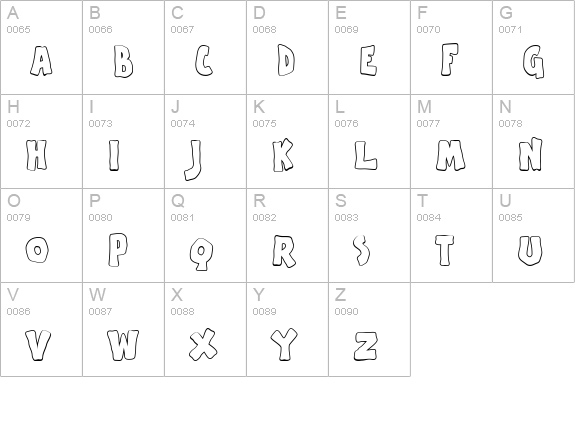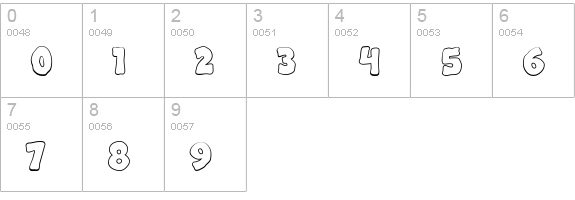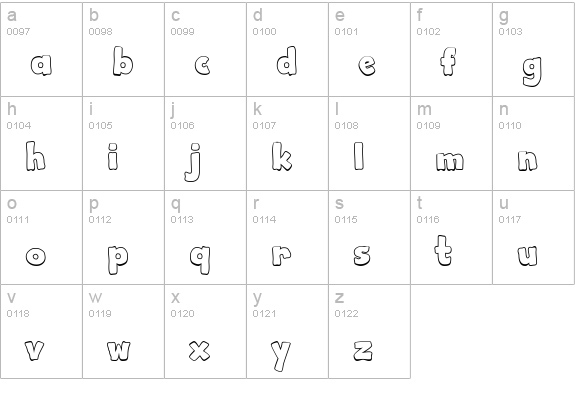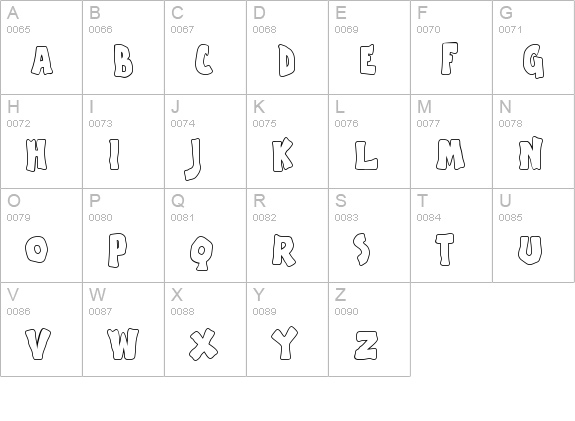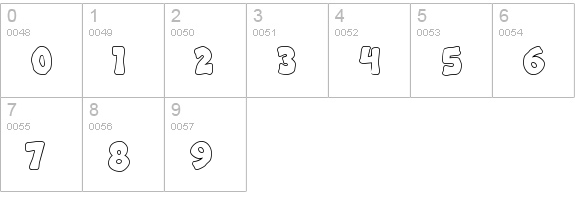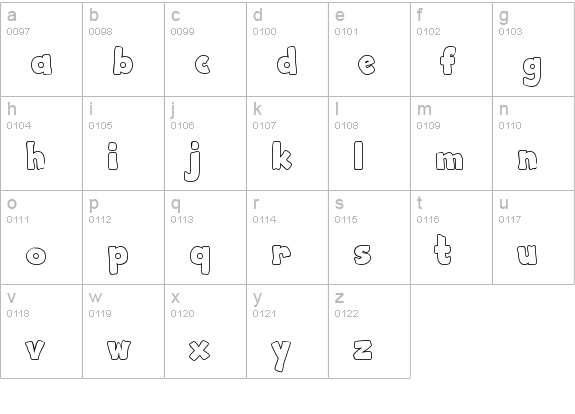
Apple Boy BTN Outline font is a charming and playful typeface that adds a fun and whimsical touch to any design project. With its bold outlines and quirky style, this font is perfect for creating eye-catching headlines, posters, and invitations. The unique design of Apple Boy BTN Outline font is sure to grab attention and make your text stand out. Best of all, Apple Boy BTN Outline font is available for free download at FontsMarket.com. Whether you're working on a personal project or a professional design, this font is a great choice for adding a touch of personality and creativity. So why wait? Download Apple Boy BTN Outline font today and start adding some fun to your designs!